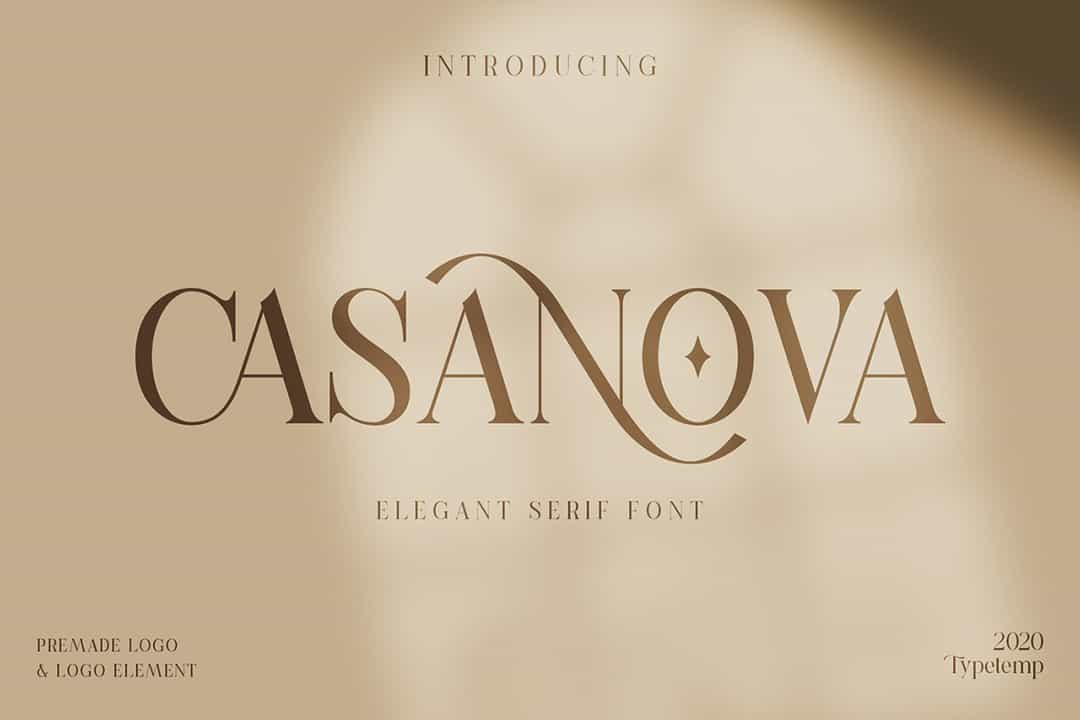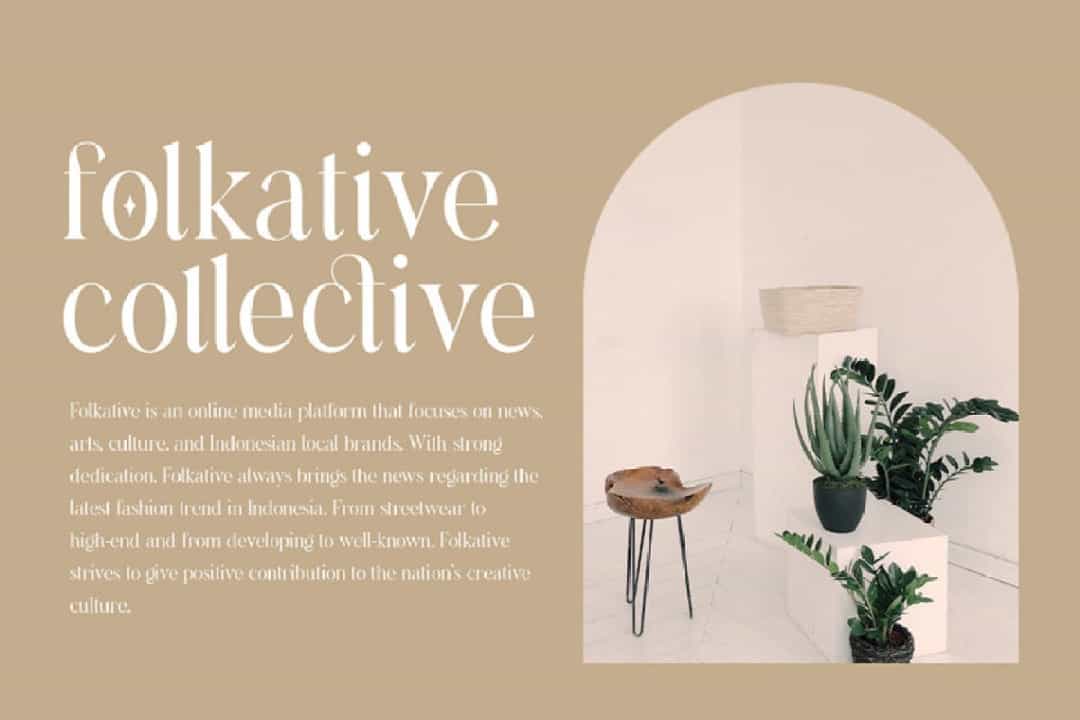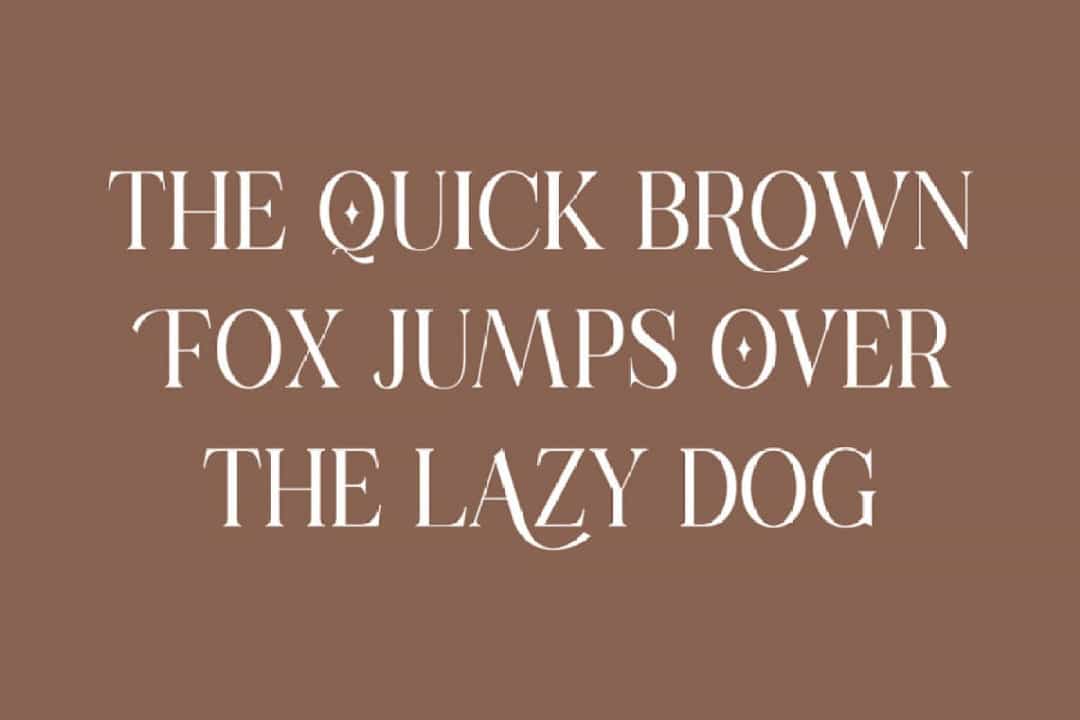
This Casanova Modern-style serif font is rich in alternates and ligatures that can assist the designers in creating some excellent logos, quotes and blogs, and posts and even for creating branding projects, magazine images, wedding invitations and cards, and many other projects.